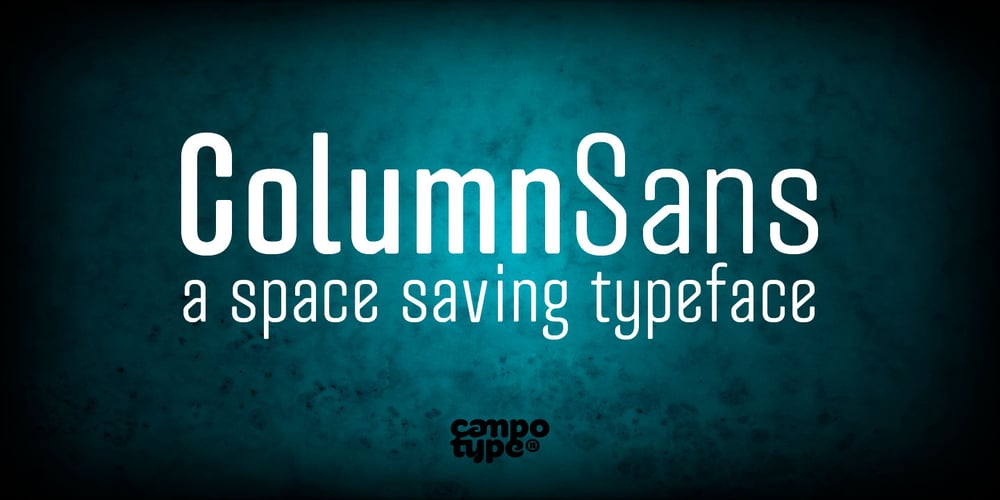
Column Sans Font Family was designed by Andi A. W. Masry and published by Campotype. Column Sans contains 6 styles and family package options. Column Sans, talking about space efficiency. The character set that condensed can maximize the use of limited space without losing good legibility aspects. The typeface is very appropriate to be used as a text in a small column widths, display text, caption, title, author credit on the film, etc. Column Sans is available in OpenType format in the three weights Light, Regular, and Bold, whereby there are corresponding italics for all variants. In the same narrow italic versions, the “a” has a closed form while the “f” has a descender. Besides of standard ligature, this typeface is also equipped with some additional ligature and deligature like “fr”, “tt”, “cb”, “ch”, “ck” and so on as well as three “stylistic ligature”: “the”, “Mr” and “Mrs”. Please find more information about the OpenType Manual of this typeface on the gallery page (pdf) if possible.